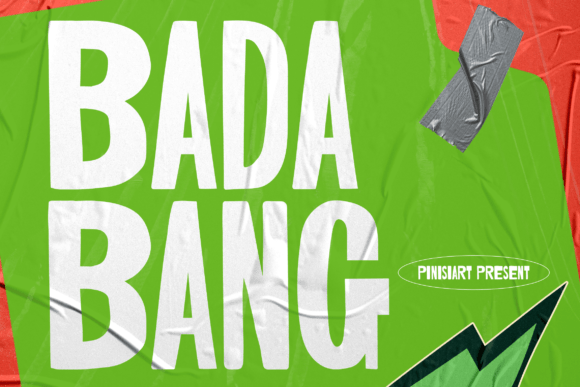
Journey into the whimsical world of Bada Bang, a display font brimming with charm and playfulness. Its playful spirit makes it the perfect companion for children's books, conjuring up fantastical tales with every curve and stroke. Let Bada Bang dance across online games, captivating young minds with its friendly and inviting presence.
Envision the joy it will bring to stationery and school supplies, transforming everyday items into delightful expressions of creativity. Bada Bang is more than just a font; it's an artistic storyteller, weaving enchanting narratives through the written word. Unleash your imagination and craft movie titles that captivate audiences, immersing them in worlds of wonder and adventure.
Picture Bada Bang gracing YouTube covers and thumbnails, captivating viewers with its vibrant and playful energy. Its unique charm will make your content stand out in the crowded digital landscape, inviting clicks and igniting curiosity. Make your social media posts pop with Bada Bang's infectious energy, engaging followers with eye-catching visuals that demand attention.
Enrich your design toolbox with Bada Bang, and unlock a world of creative possibilities. Let it inspire you to craft designs that resonate with your audience, leaving a lasting impression that lingers in their minds. Join the creative revolution and embrace the magic of Bada Bang, where imagination knows no bounds and creativity flows freely. Add it to your fonts library today and be amazed by its transformative power!